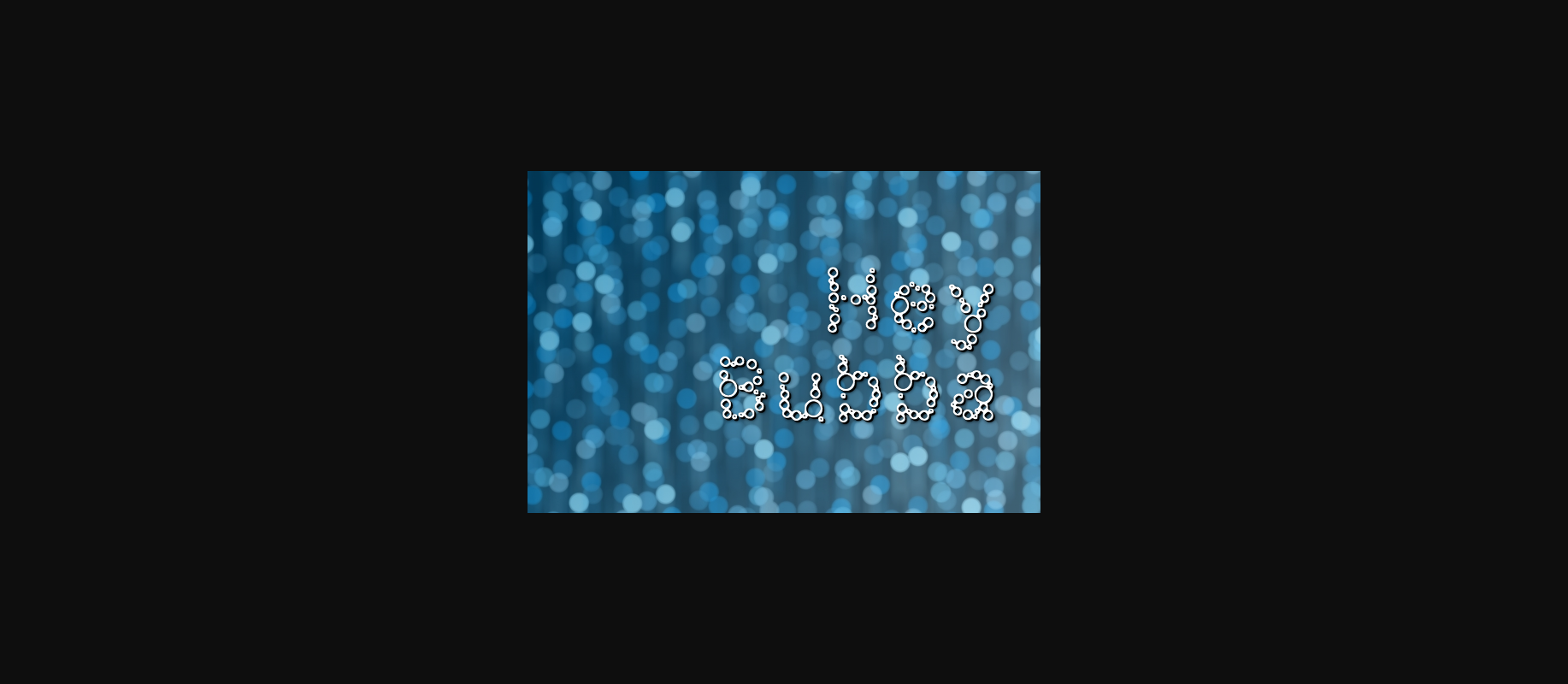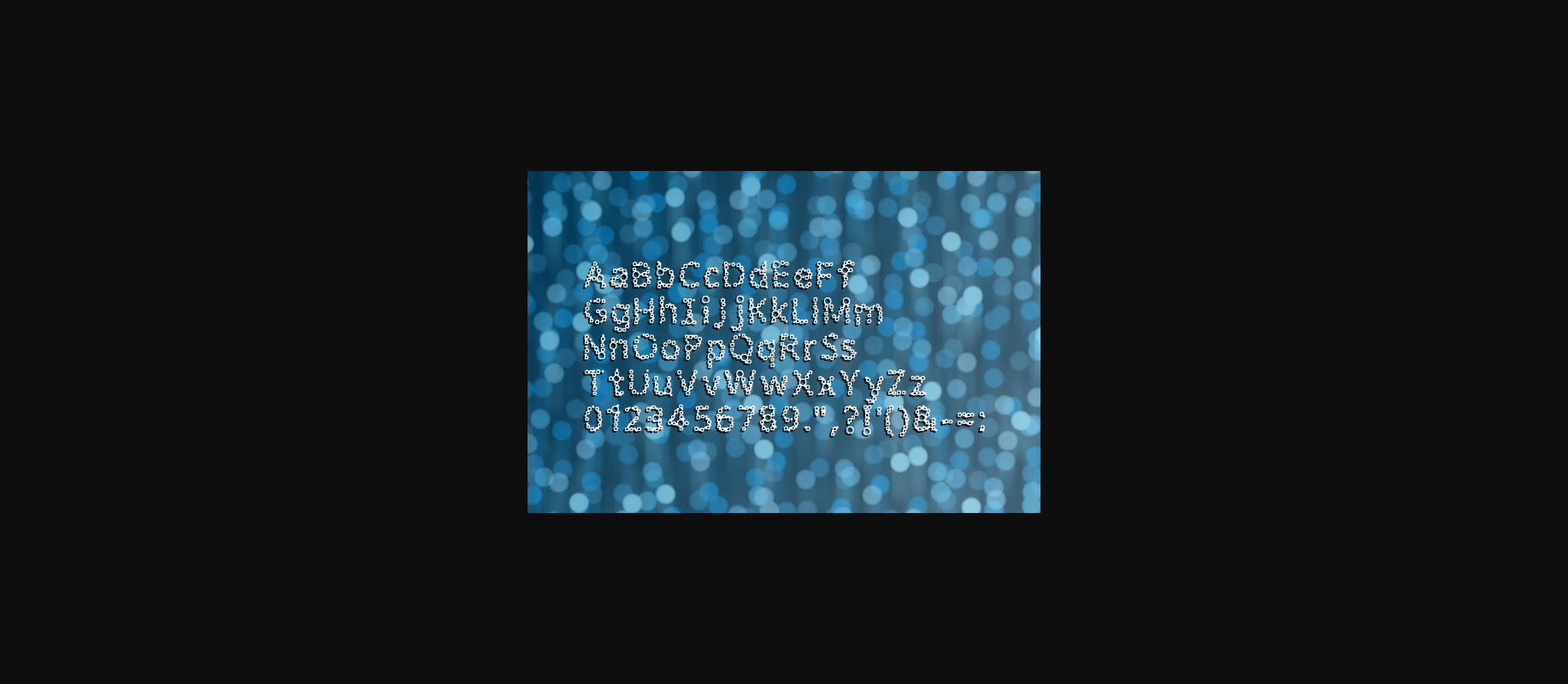
HomeDecorative FontsHey Bubba Font Decorative Fonts Hey Bubba Font FacebookXPinterestWhatsApp 1 of 2 About Hey Bubba Font Hey Bubba is a decorative bubble based font. Great for decorative designs! DOWNLOAD NOW People also explored Christmas Worship Font Specialty Goods Font Sumpilan Font Bartond Script Font Sunday Mood Font Camden Font Mareena Font Maple Leaf Font Vasaggy Font 435 0 TagsHey Bubba Font Previous articleGuondrong FontNext articleWormspy Font LEAVE A REPLY Cancel reply Comment: Please enter your comment! Name:* Please enter your name here Email:* You have entered an incorrect email address! Please enter your email address here Website: Save my name, email, and website in this browser for the next time I comment. Personal Use Free Hunters Personal Use Free Read more about this font Winter Soldier Personal Use Free Read more about this font Laneway Personal Use Free Read more about this font Sweet Beautiful Personal Use Free Read more about this font BLOG Best Fonts for YouTube Videos: Make Your Thumbnails Stand Out Best Fonts for YouTube Videos: Make Your Thumbnails Stand Out Choosing the right font can make a massive difference in how your YouTube videos perform.... Elegant Wedding Invitation Fonts – Handwritten & Script Fonts How to Cut Any Font on Cricut: Convert a Font to SVG (Free) The 10 Best Handwriting Fonts to Add Personality to Your Designs